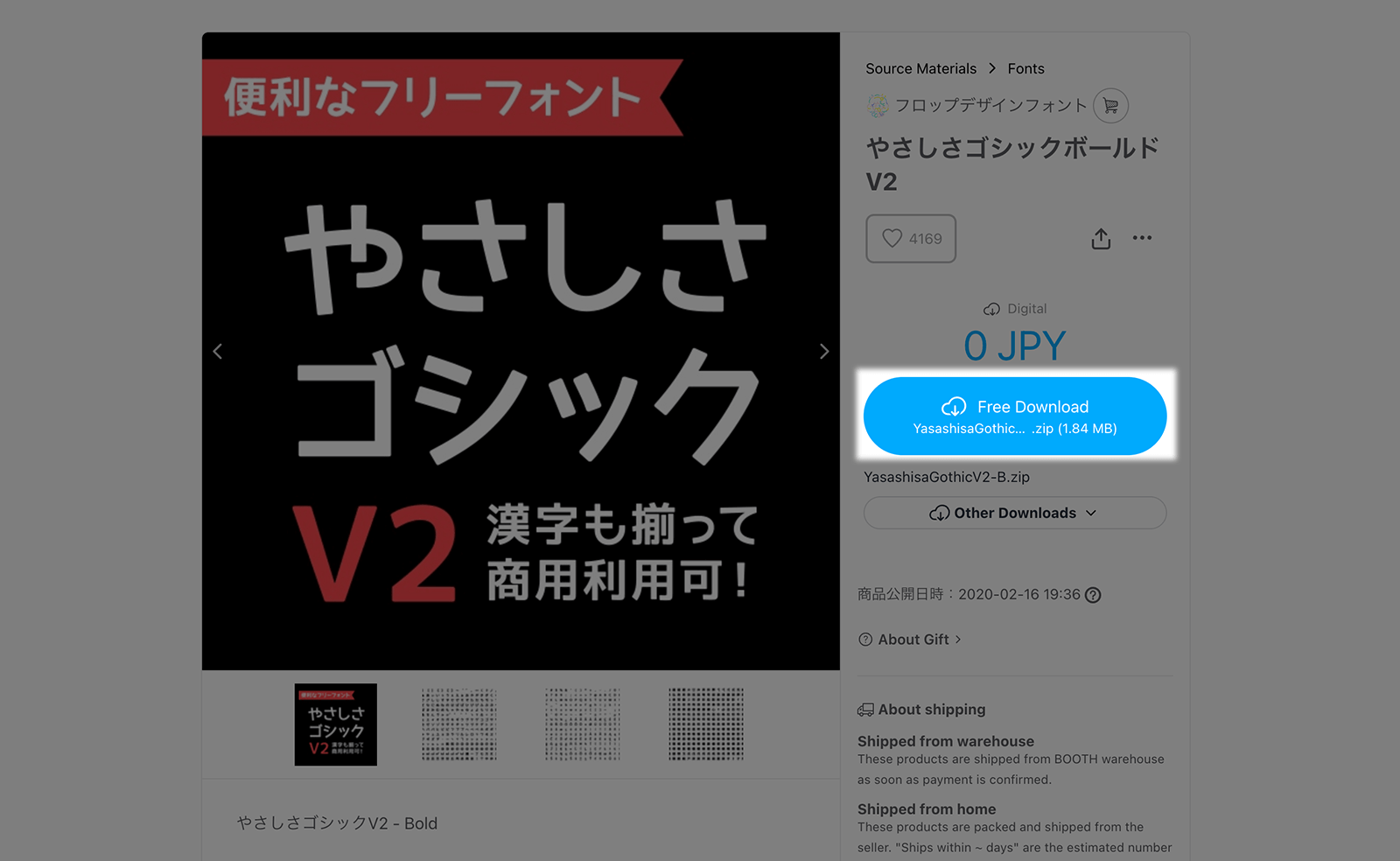
Yasashisa Gothic Bold V2
Yasashisa Gothic Bold V2 is a rework of the Yasashisa Gothic Bold, a free font that was released by Fontna. The hiragana and katakana characters spotted a soft curvature, and the slightly rounded edges giving the font a smooth and pleasing viewing experience.
- Hiragana and Katakana
- Kanji (about 1000 kanjis)
- Alphanumerics
- Symbols and Punctuation